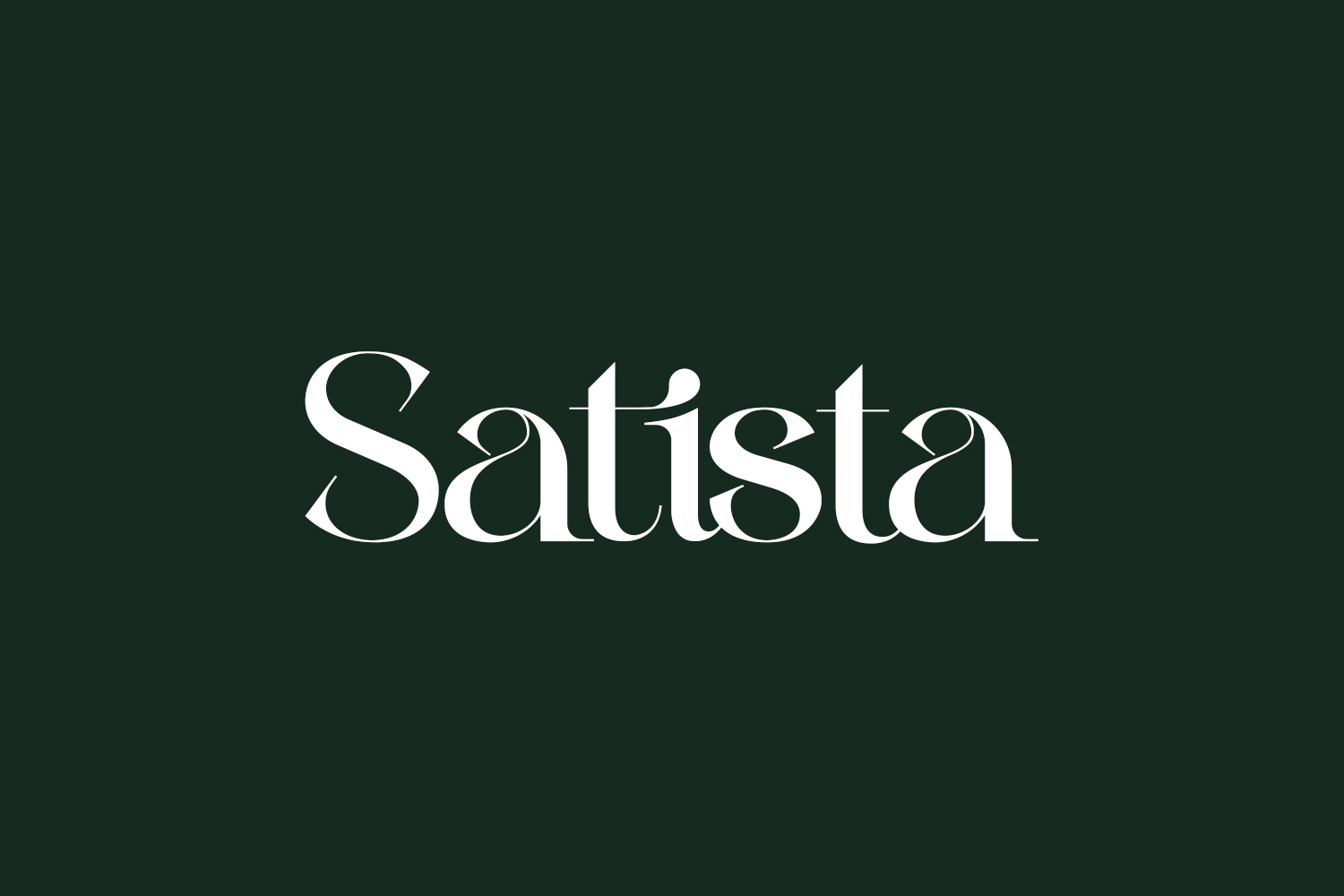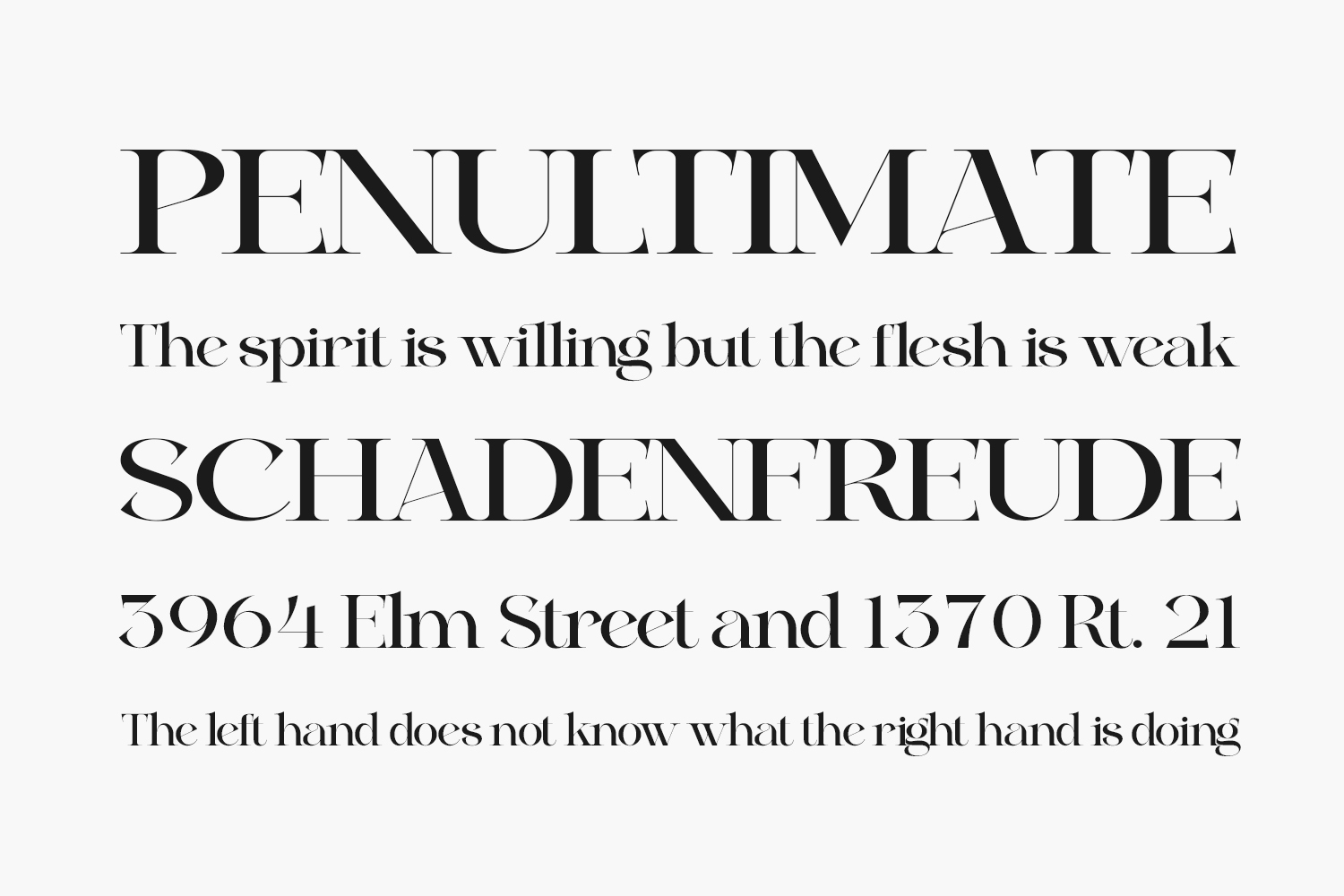
Discover Satista Free Font, a contemporary and chic serif font. With its unique and harmoniously balanced letters, this font stands as a true masterpiece. Embrace its remarkable versatility and employ it to craft spectacular designs that captivate and inspire. Satista Free Font is free for personal use only. Please purchase the full version for commercial use.